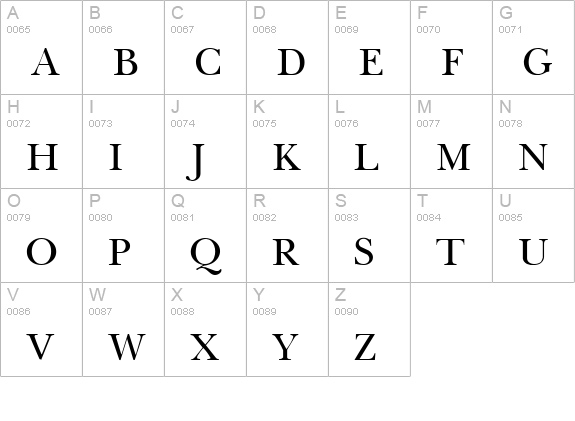
Basset Regular Font Details
Basset Regular is the standard, neutral variant in the Basset typeface family \xE2\x80\x94 well suited to general body text, paragraphs, and standard typographic work.
Basset Regular font is a charming and elegant typeface that exudes a sense of sophistication and style. Its classic design features graceful curves and sturdy serifs, making it perfect for a wide range of design projects. Whether you're creating a vintage-inspired logo, a stylish invitation, or a classic branding design, Basset Regular font will add a touch of timeless beauty to your work. What's even better is that Basset Regular font is available for free download at FontsMarket.com. Yes, you heard that right - this stunning typeface can be yours at no cost! Simply head over to FontsMarket.com to grab your copy and start using Basset Regular font in your projects today. Don't miss out on this incredible opportunity to elevate your designs with this exquisite font.